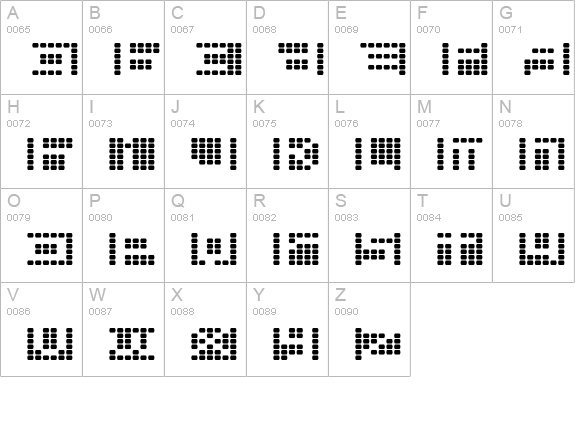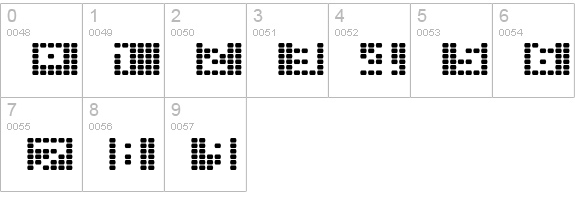
The BOX font is a unique and modern typeface that is sure to make your designs stand out. With its clean lines and bold appearance, this font is perfect for a wide range of projects, from branding to posters to social media graphics. The best part? It's completely free to download at FontsMarket.com! So why wait? Add a touch of sophistication and style to your creations with the BOX font today.